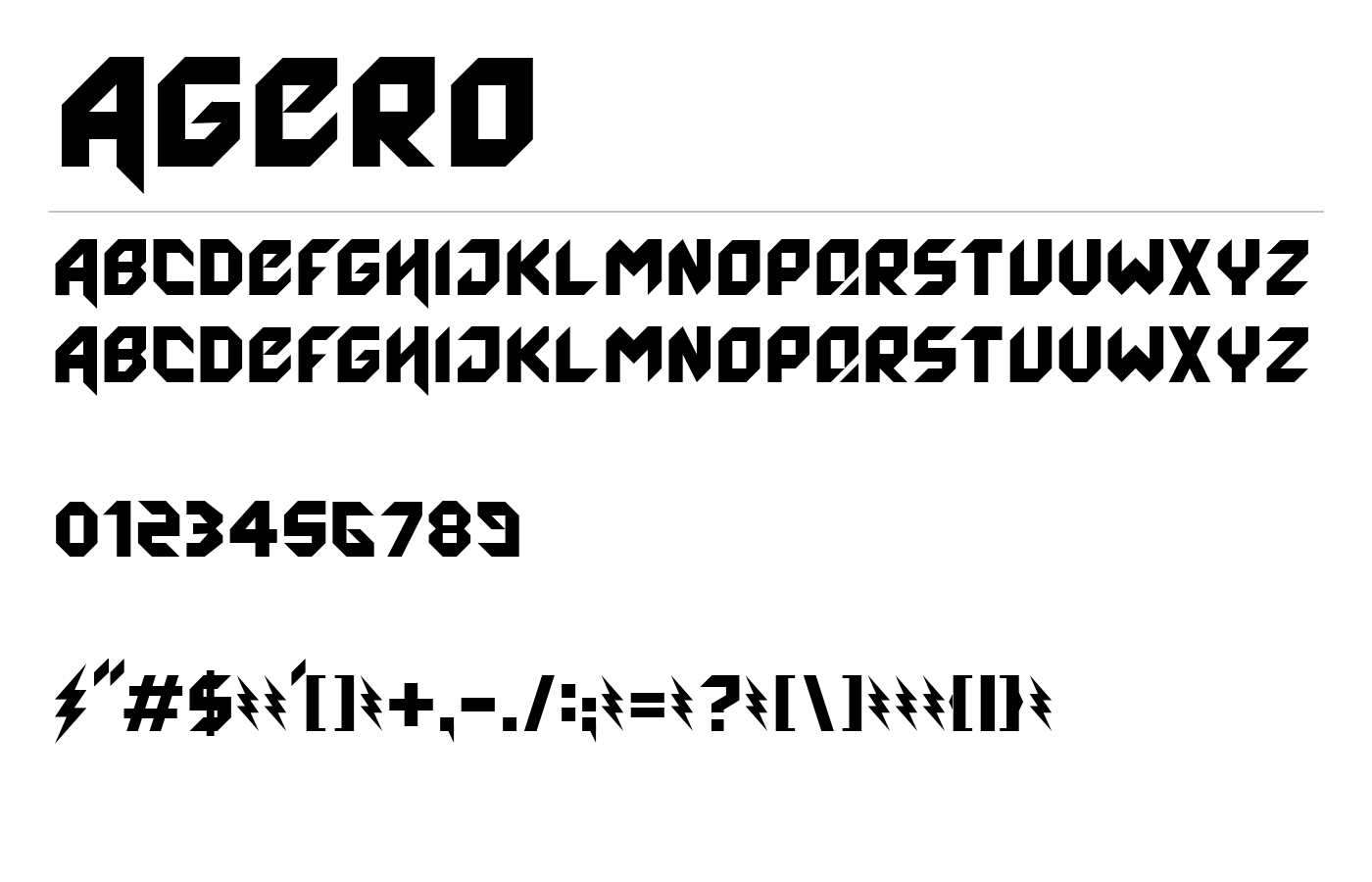
Agero is a bold, angular sans serif font with a futuristic and edgy feel, characterized by sharp geometric shapes and high contrast between thick and thin strokes. Its uppercase set features distinctive, blocky letterforms with unique cuts and bite-like angles, giving it a strong, dynamic personality ideal for impactful headlines, logos, and branding that aim to convey energy and modernity. This font works best in bold display contexts where a striking, techno-inspired style is desired.
Agero Font